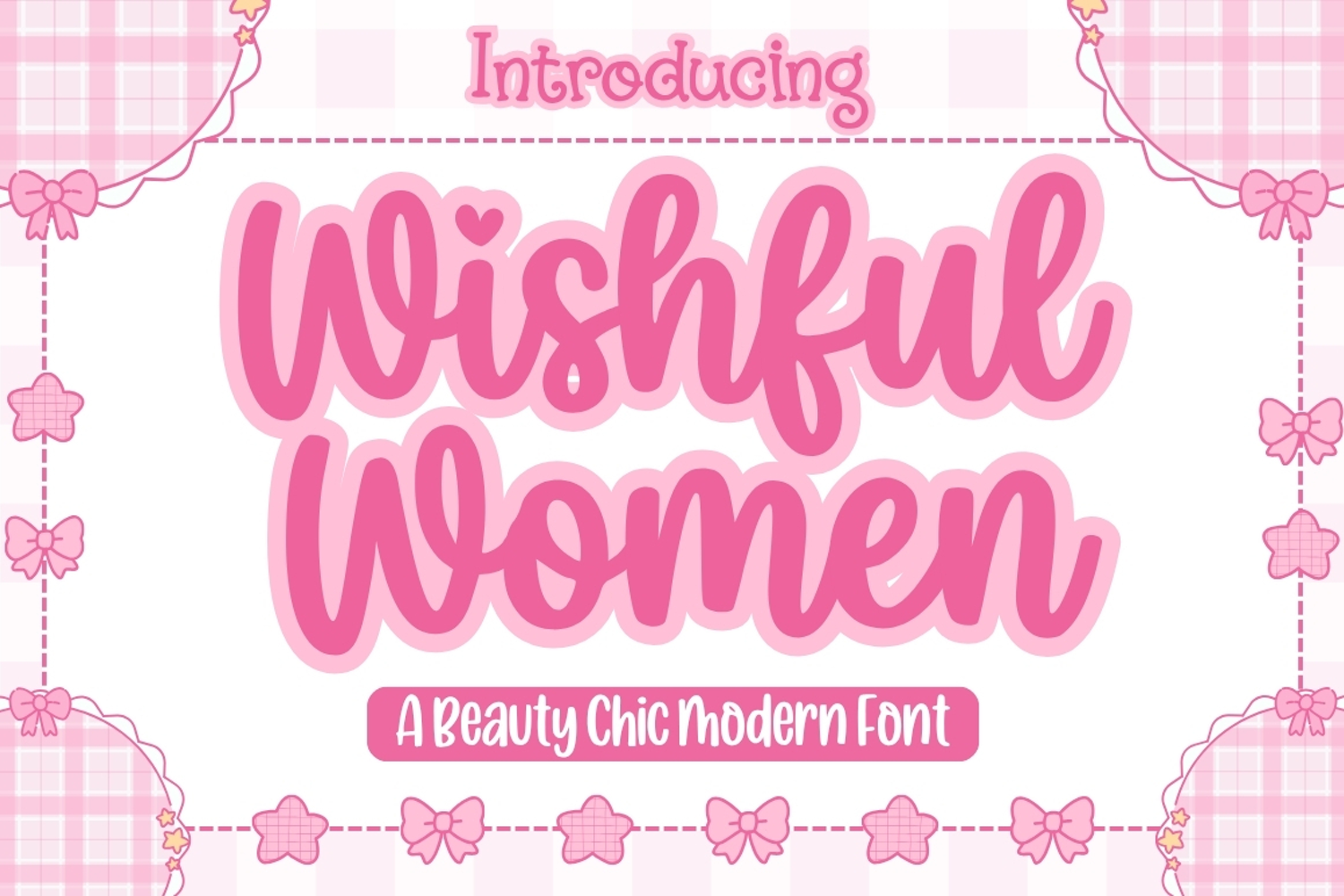
Wishful Women
Wishful Women is a graceful handmade script font that celebrates elegance, confidence, and timeless femininity. Featuring smooth flowing strokes, delicate curves, and beautifully balanced letterforms, this font captures the charm of natural handwriting while delivering a refined and sophisticated appearance. Every character is thoughtfully crafted to bring warmth, personality, and effortless beauty to your designs.
Designed for creatives who appreciate stylish typography, Wishful Women is perfect for branding, fashion logos, beauty products, boutique packaging, wedding invitations, greeting cards, social media content, magazine headlines, product labels, cosmetic branding, stationery, quotes, and luxury lifestyle projects. Its flowing script creates a harmonious and inviting look that instantly adds a premium touch.
Whether you’re designing a romantic wedding suite, building a feminine brand identity, or creating elegant promotional materials, Wishful Women offers the perfect balance of softness, sophistication, and readability.